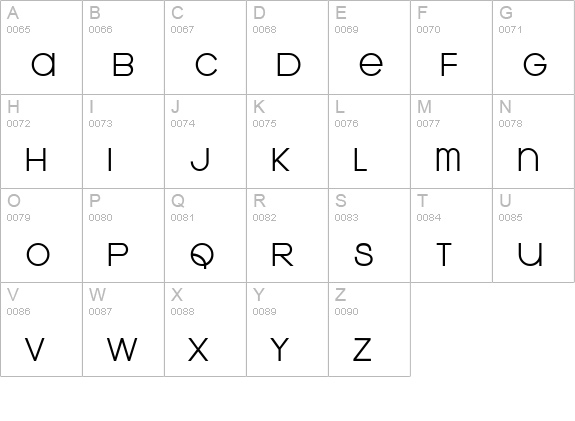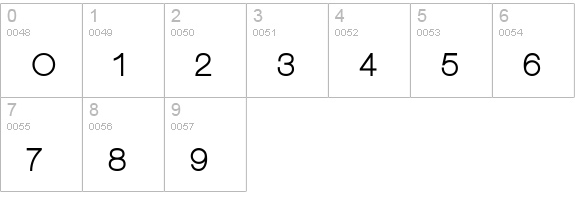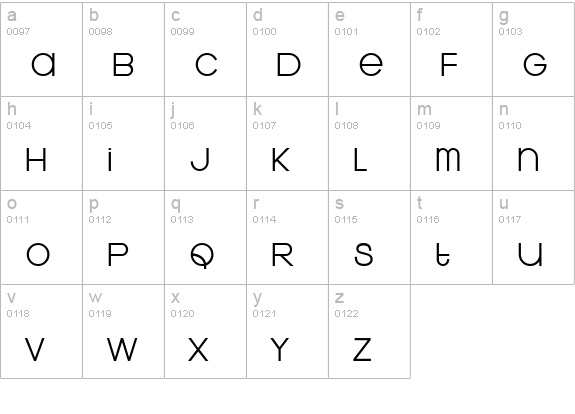
Kravitz Thermal Font Details
Introducing Kravitz Thermal, a cutting-edge font that combines elegance and modernity in a unique and captivating way. This font is perfect for those seeking to make a bold statement with their design projects, whether it be for branding, advertising, or any other creative endeavor. Kravitz Thermal is characterized by its sleek and streamlined appearance, with each letter meticulously crafted to exude a sense of professionalism and sophistication. Its sharp edges and clean lines create a captivating visual impact, making it a versatile choice for both digital and print media. What sets Kravitz Thermal apart from the rest is its remarkable ability to evoke a sense of warmth and energy. Its subtle yet distinctive curves and angles give each letter a dynamic and vibrant feel, making it an excellent choice for projects that require a touch of modernity and creativity. But here's the best part – Kravitz Thermal is freely available to download at FontsMarket.com. We believe that great design should be accessible to all, and that's why we're offering this font free of charge. Whether you're a seasoned designer looking to add an innovative touch to your portfolio or a beginner exploring the world of typography, Kravitz Thermal is here to accompany you on your creative journey. So why wait? Download Kravitz Thermal today and unleash your creativity with this extraordinary font. With its seamless integration into any project, you'll be able to captivate your audience and leave a lasting impression. Remember, great design starts with the right font, and Kravitz Thermal is here to elevate your creativity to new heights.